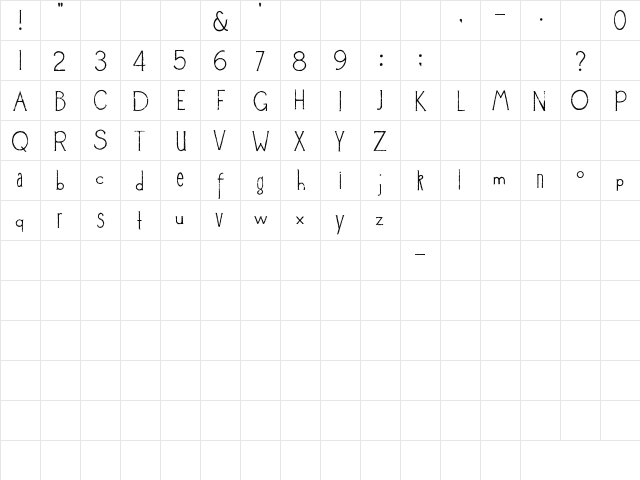
2Peas Chatter 2Peas Chatter Font Preview
2Peas Chatter 2Peas Chatter
Design Context for 2Peas Chatter Typeface
2Peas Chatter offers clean, dependable letterforms without strong stylistic allegiance, making it a practical choice for designers who need flexibility.
Pro Tip: Use 2Peas Chatter in both headline and body roles to test its range before committing to a single application.